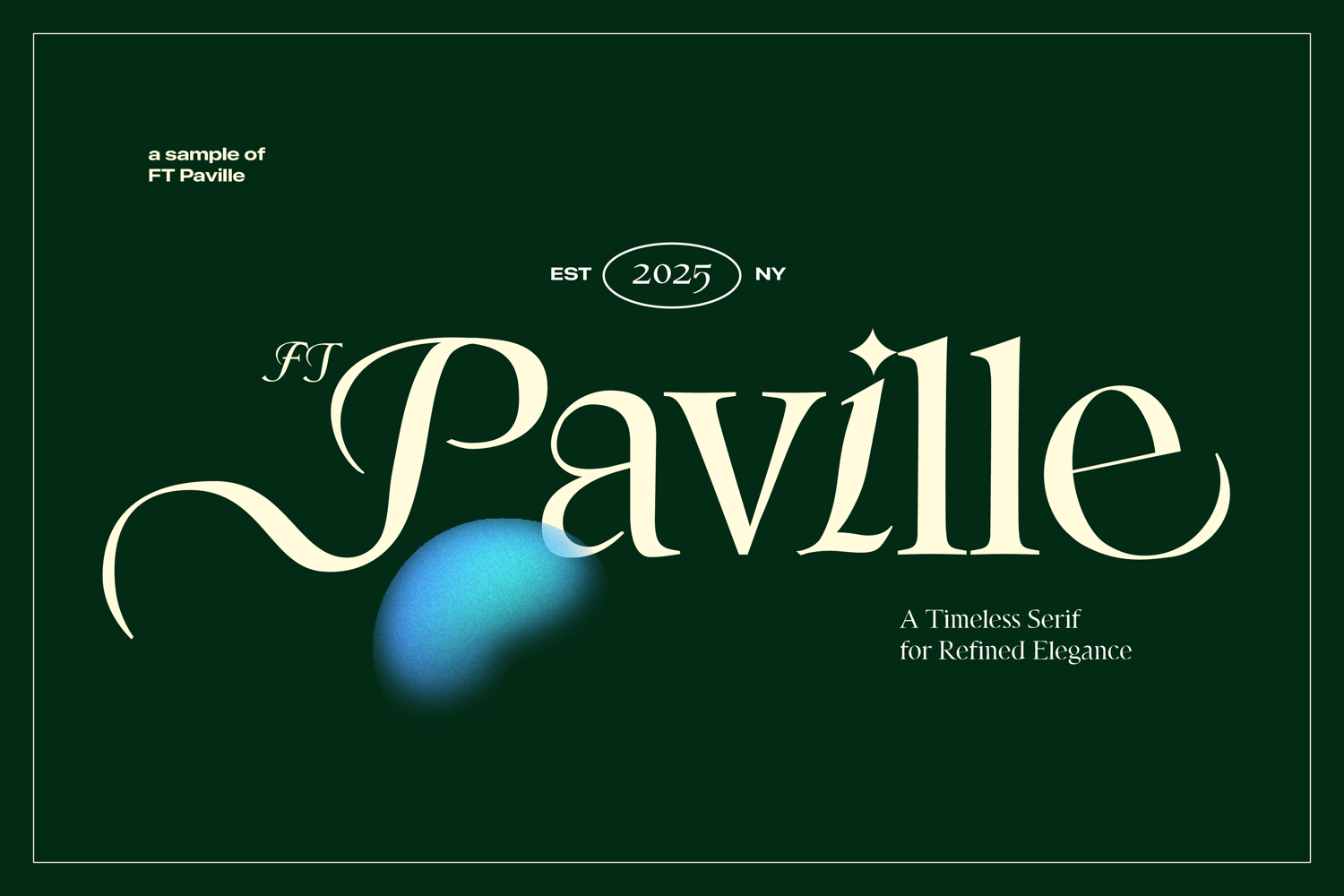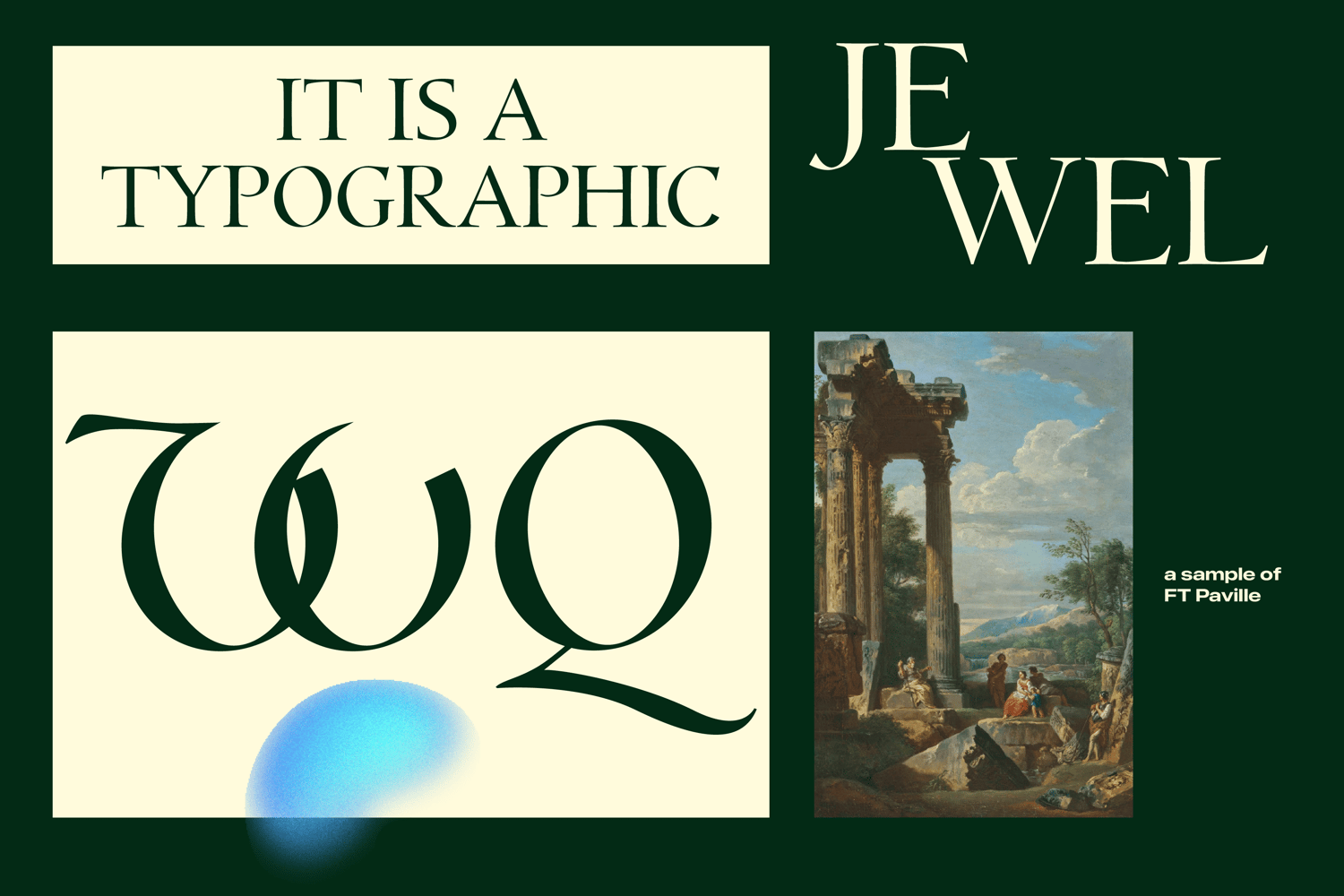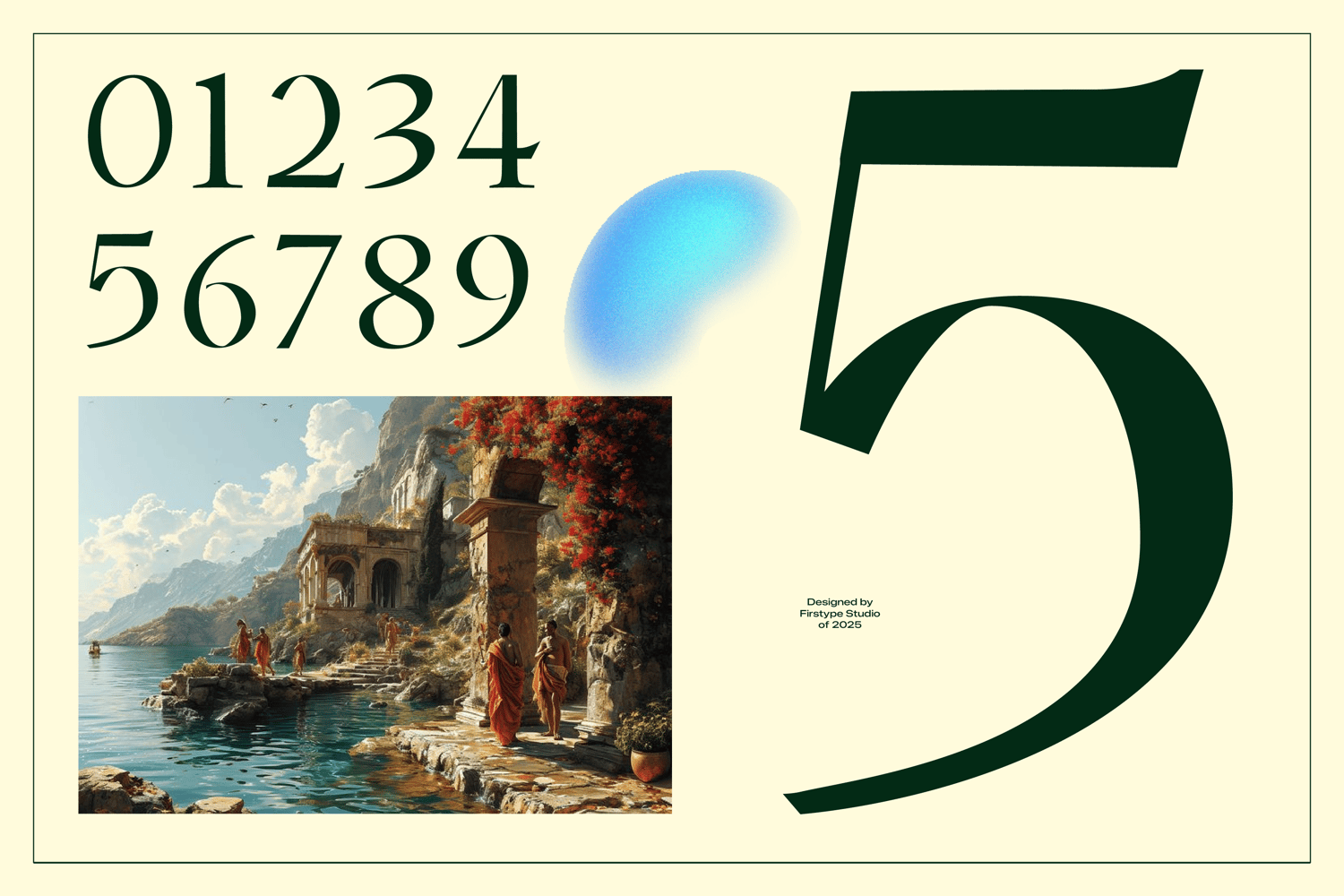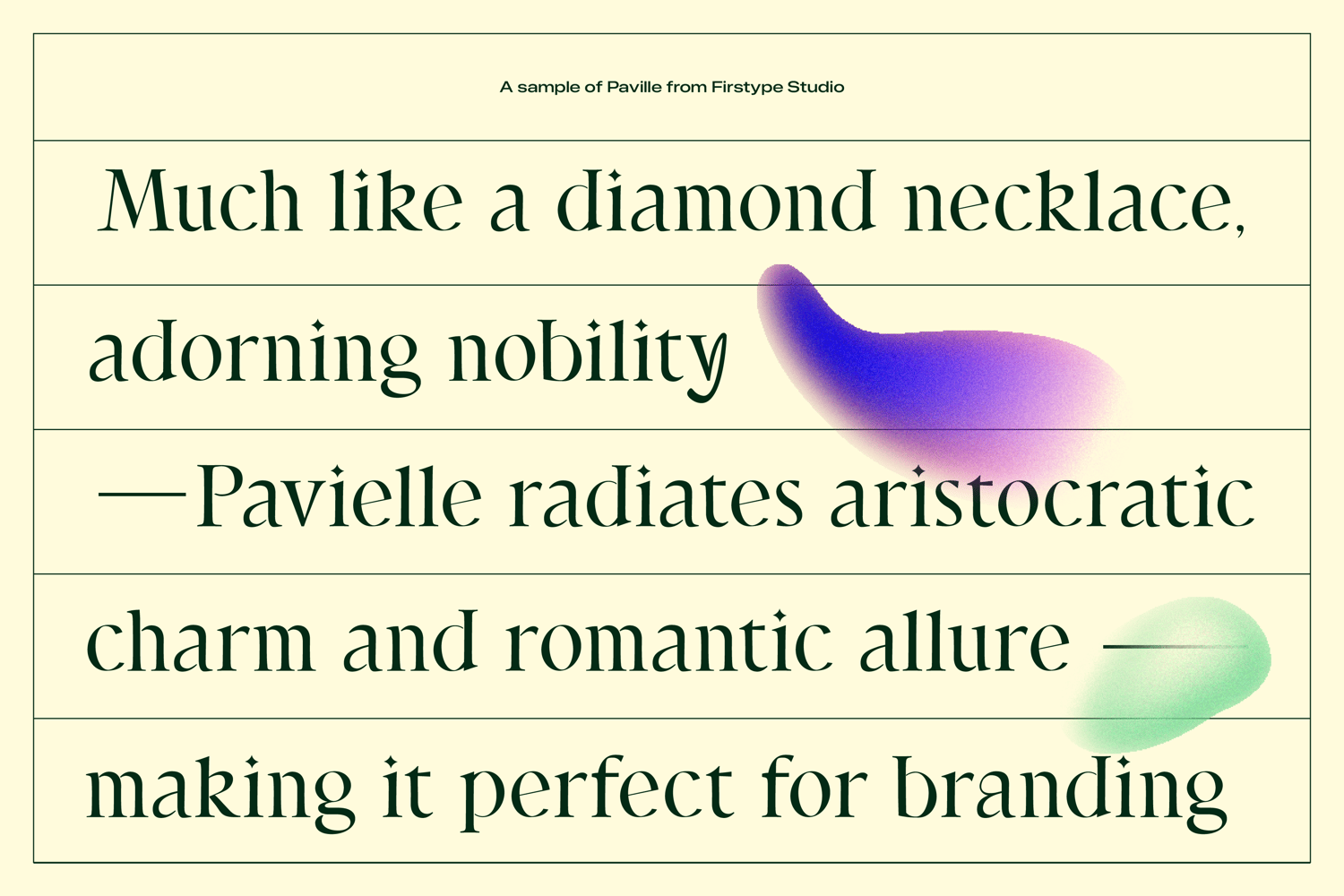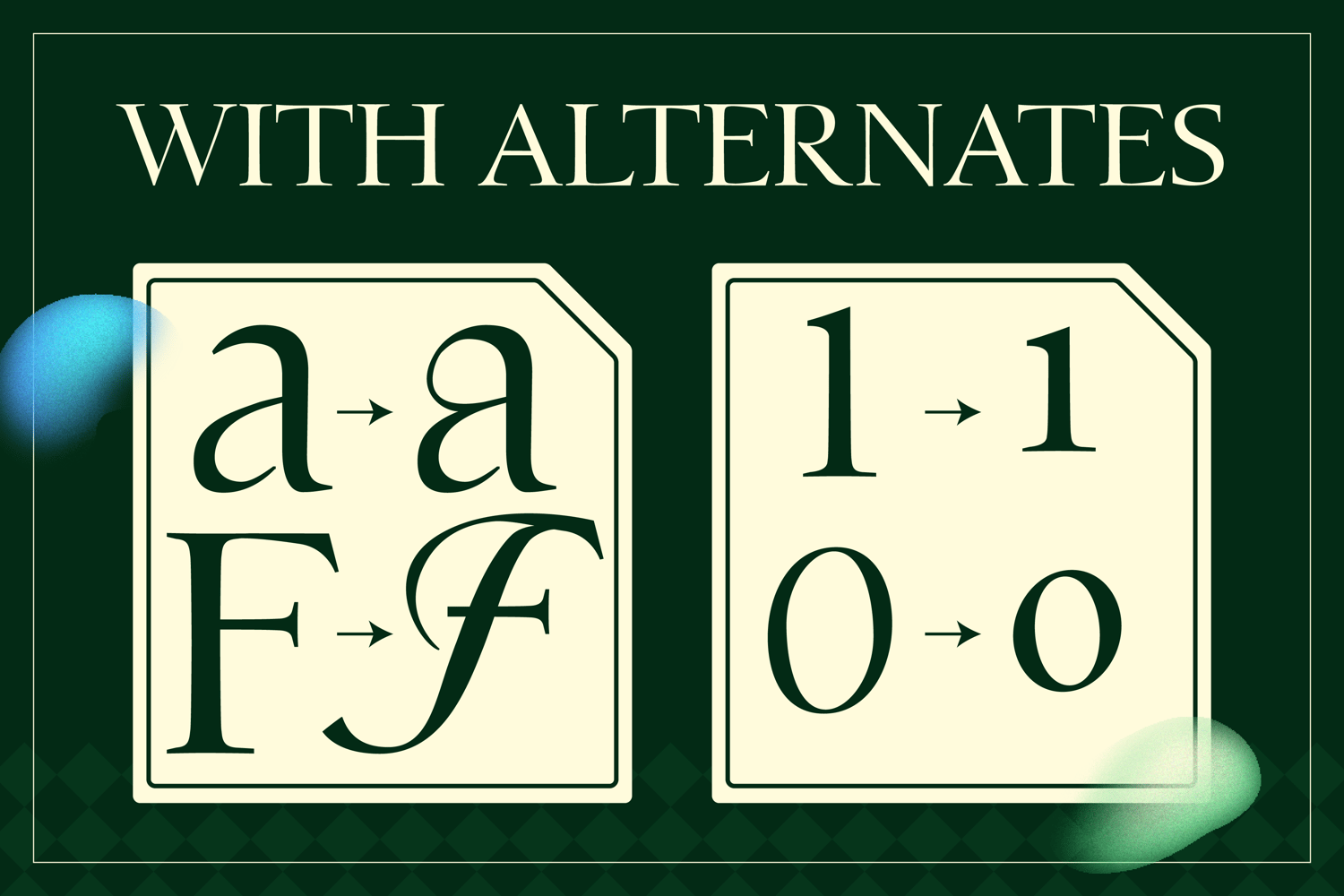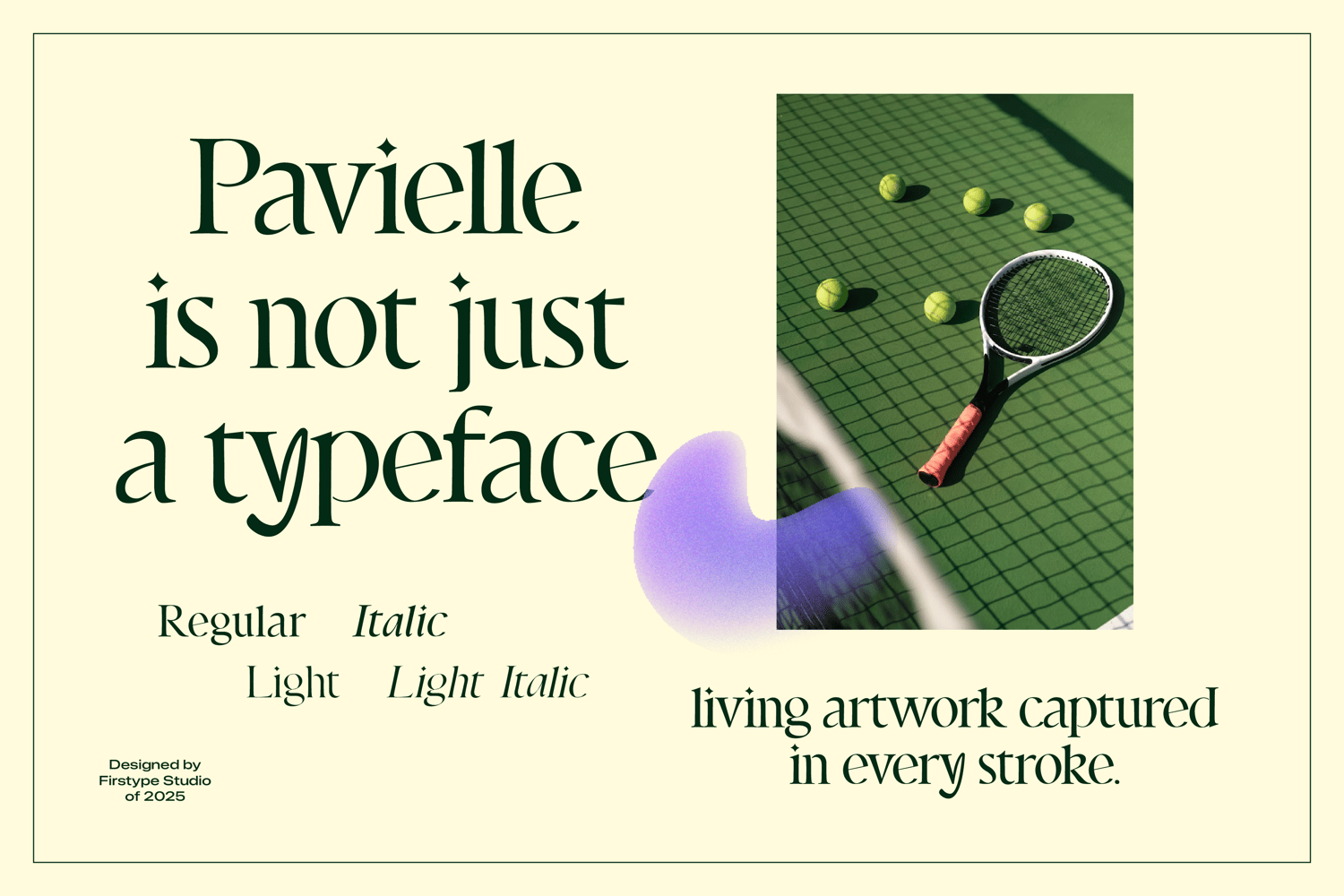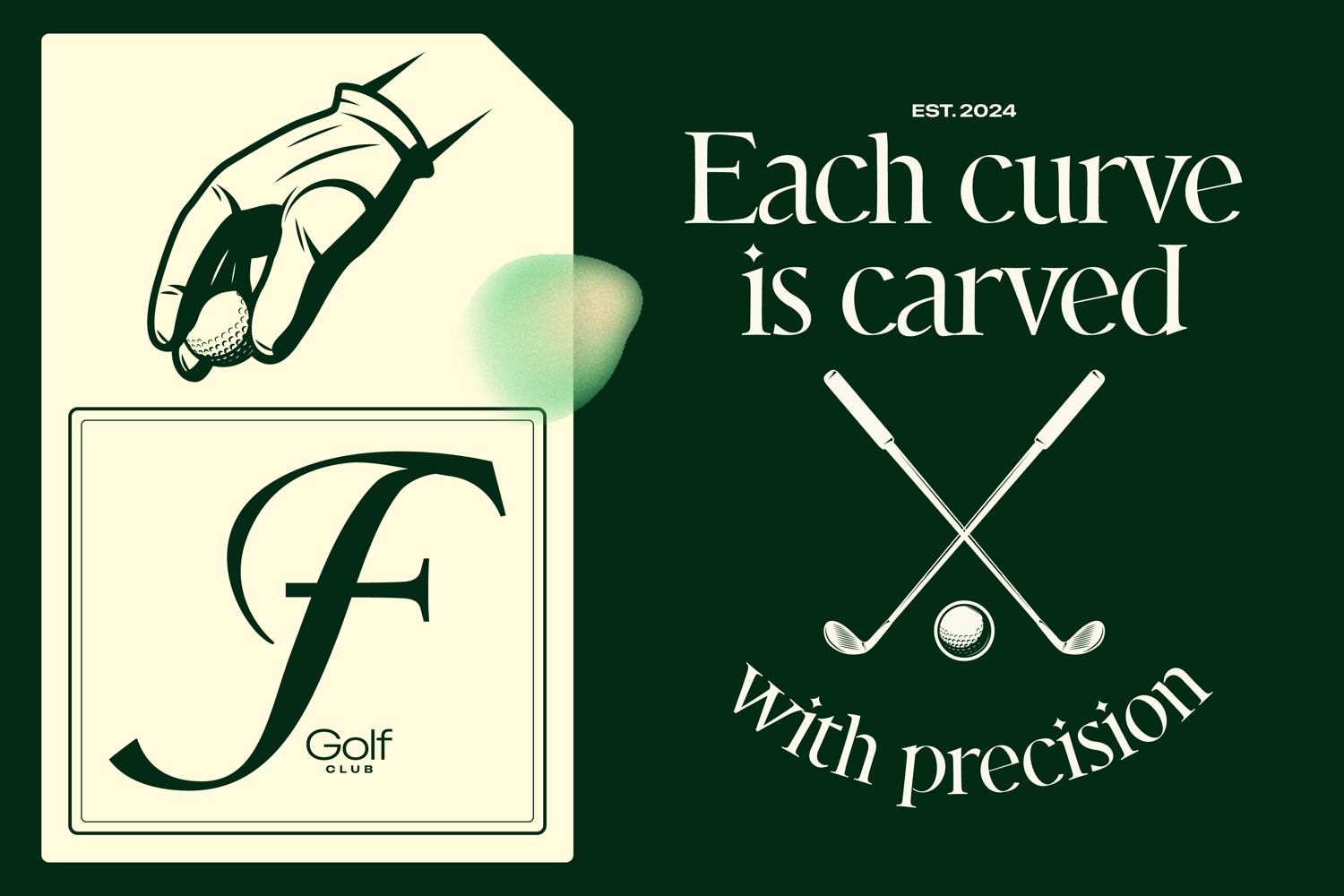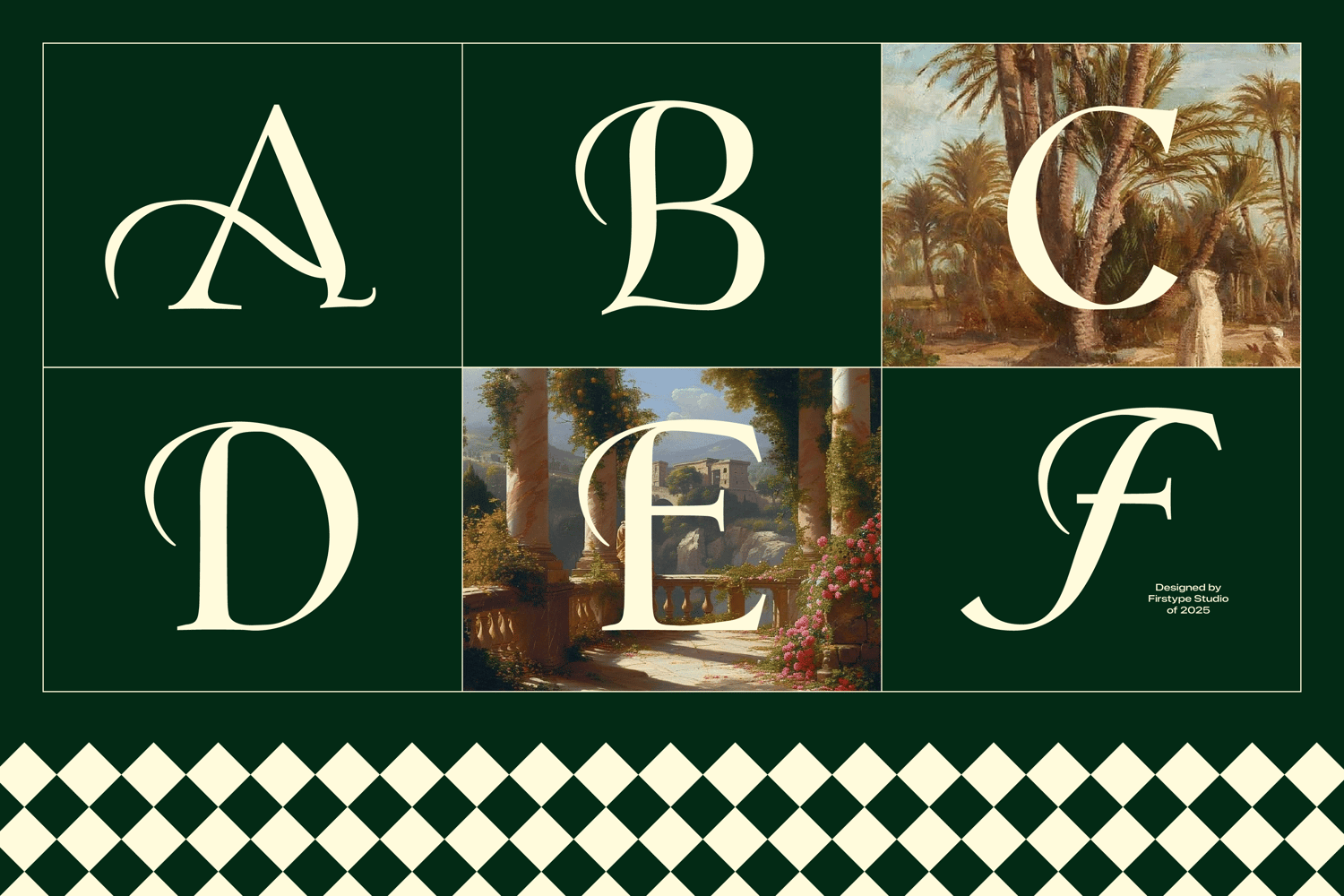
FT Paville – Modern Serif Font for Branding, Editorial & Logos
FT Paville is a modern serif font designed with a clean structure and elegant character.
Combining classic serif details with a contemporary feel, this typeface is ideal for branding, editorial design, and logo projects that require clarity and sophistication.
FT Paville works beautifully across both digital and print applications, making it suitable for modern brands, magazines, and creative layouts.
Perfect for:
– Logo & brand identity
– Editorial & magazine design
– Headlines & titles
– Packaging & premium branding